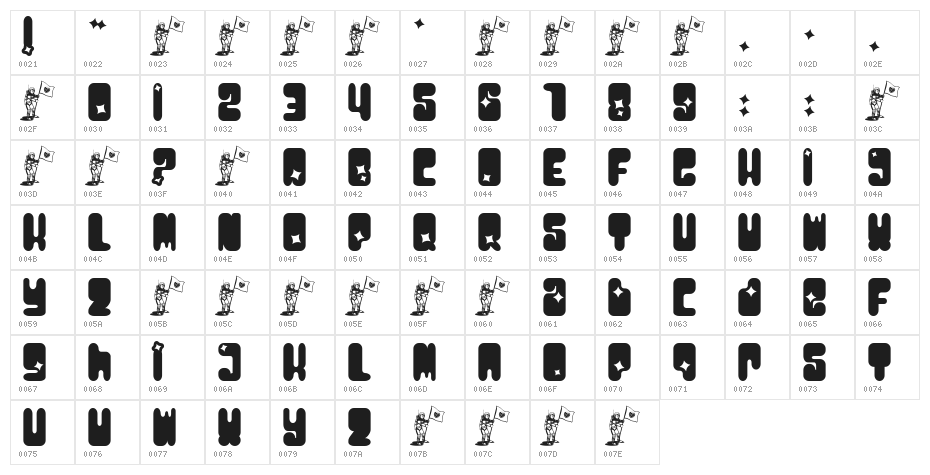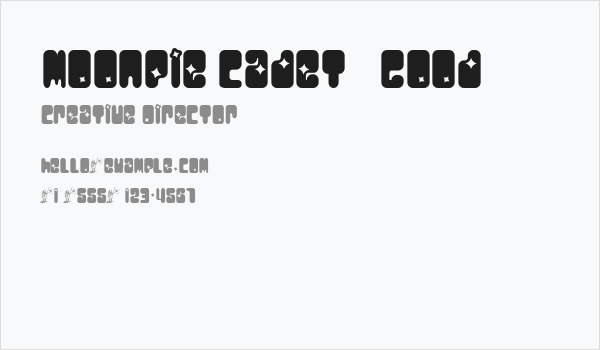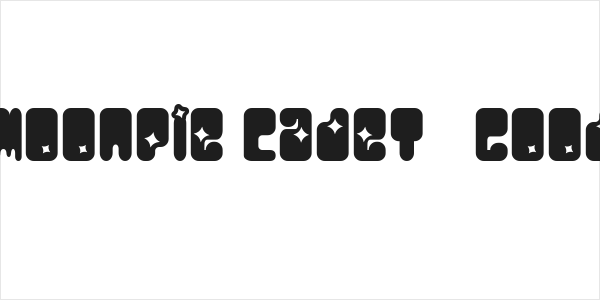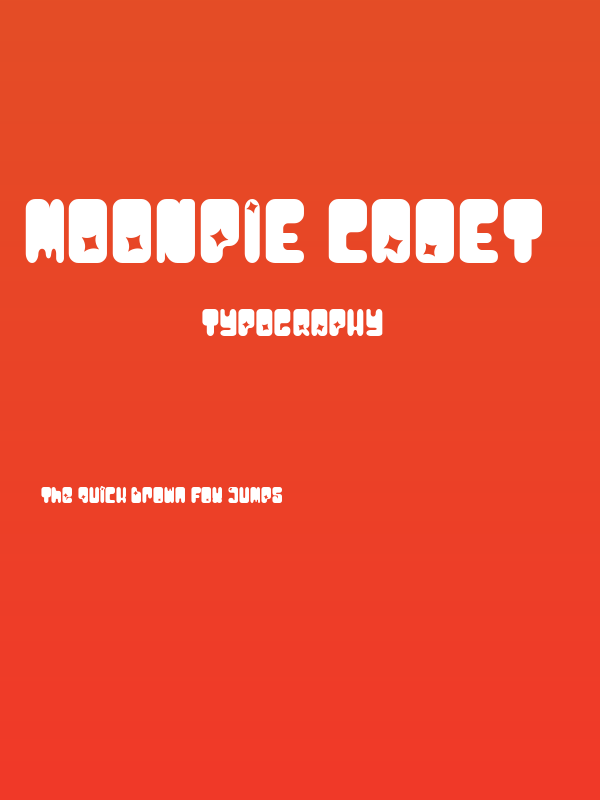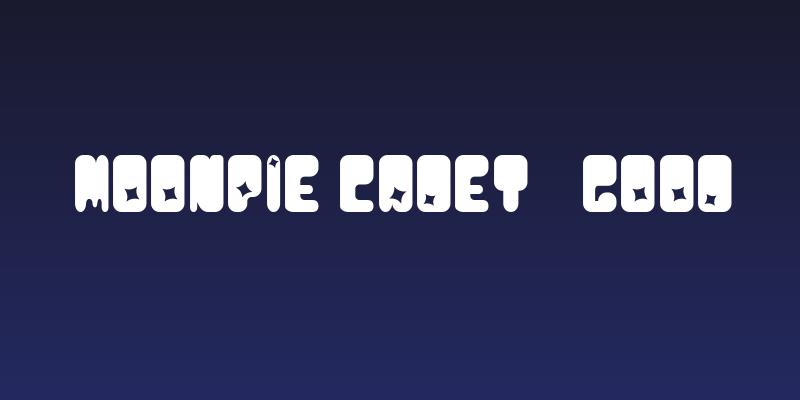
MoonPie Cadet Good Font
MoonPie Cadet Good Description
This font features a bold, playful design with a distinctly futuristic and space-themed aesthetic. The characters are rounded and filled, with unique star-shaped cutouts that add a whimsical touch. The uppercase and lowercase letters maintain a consistent style, with a strong emphasis on geometric shapes. Numbers and special characters follow the same design principles, ensuring a cohesive look across all elements. The font's thick strokes and solid forms make it highly legible, even at smaller sizes, while the decorative elements provide a sense of fun and creativity.
| Proposed Projects | Ideal for children's books, space-themed event posters, video game titles, and playful branding. |